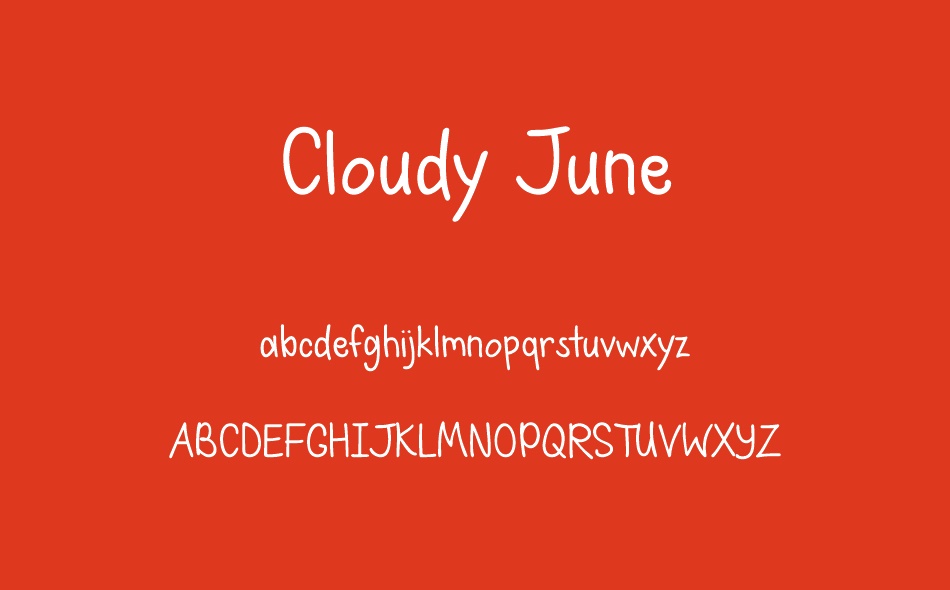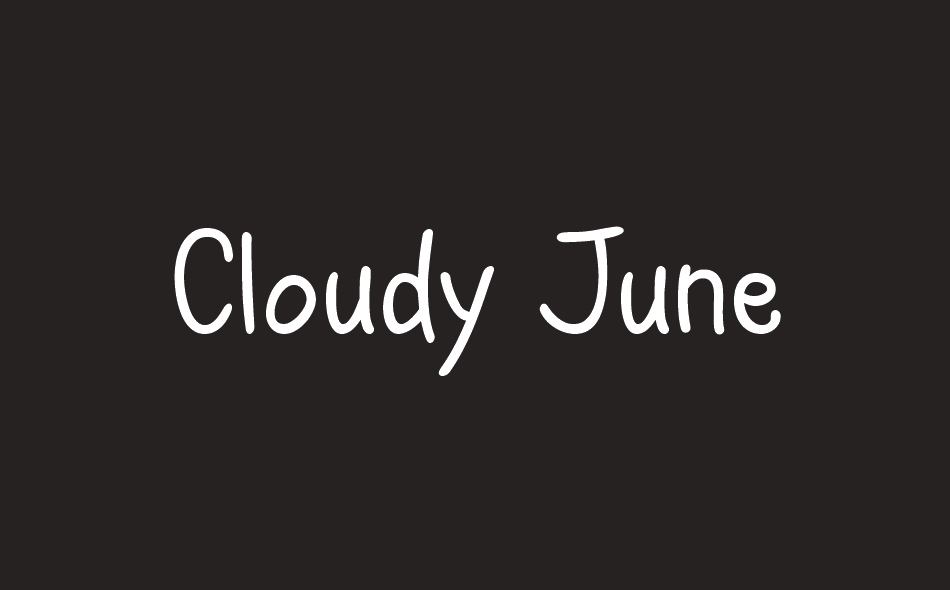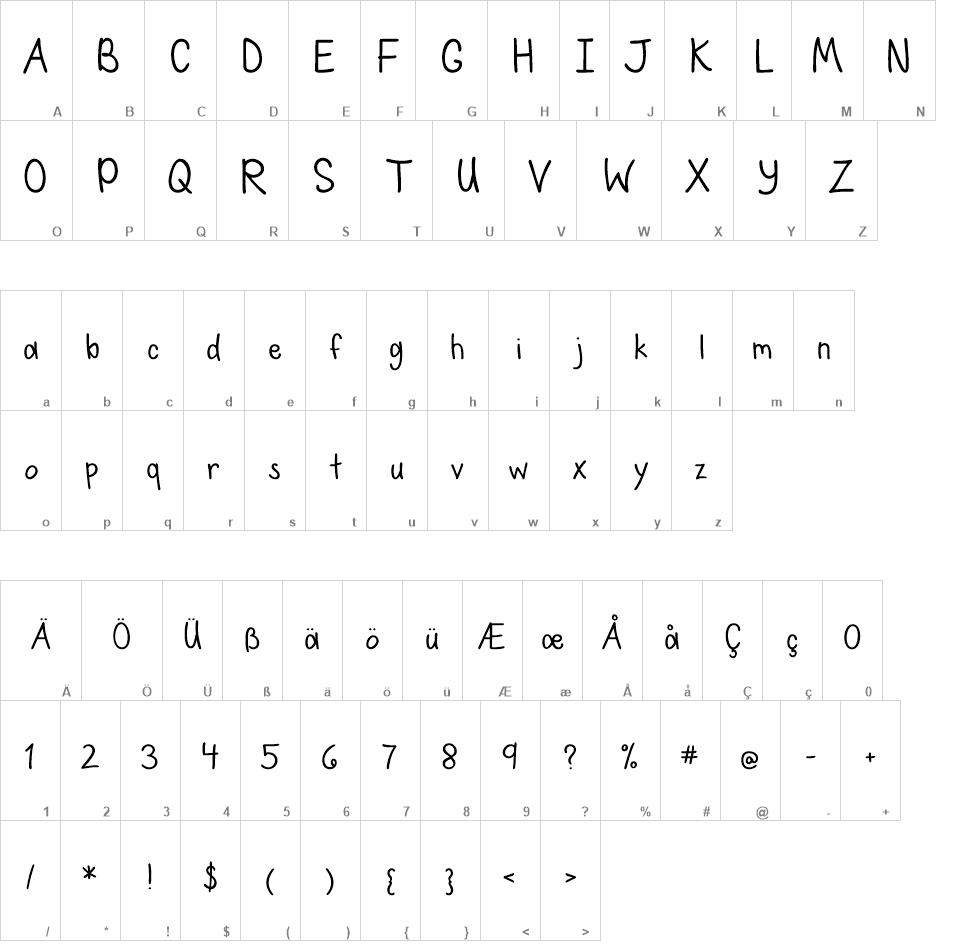
Cloudy June font
Cloudy June is a beautiful handwritten font that is perfect for adding a personal touch to your designs. With its elegant curves and flowing lines, it brings a sense of whimsy and charm to any project. The letters are carefully crafted to look like they were written by hand, giving your work a unique and authentic feel. Cloudy June is versatile enough to be used in a variety of contexts, from invitations to social media graphics. This font is sure to elevate your designs and make them stand out from the crowd.